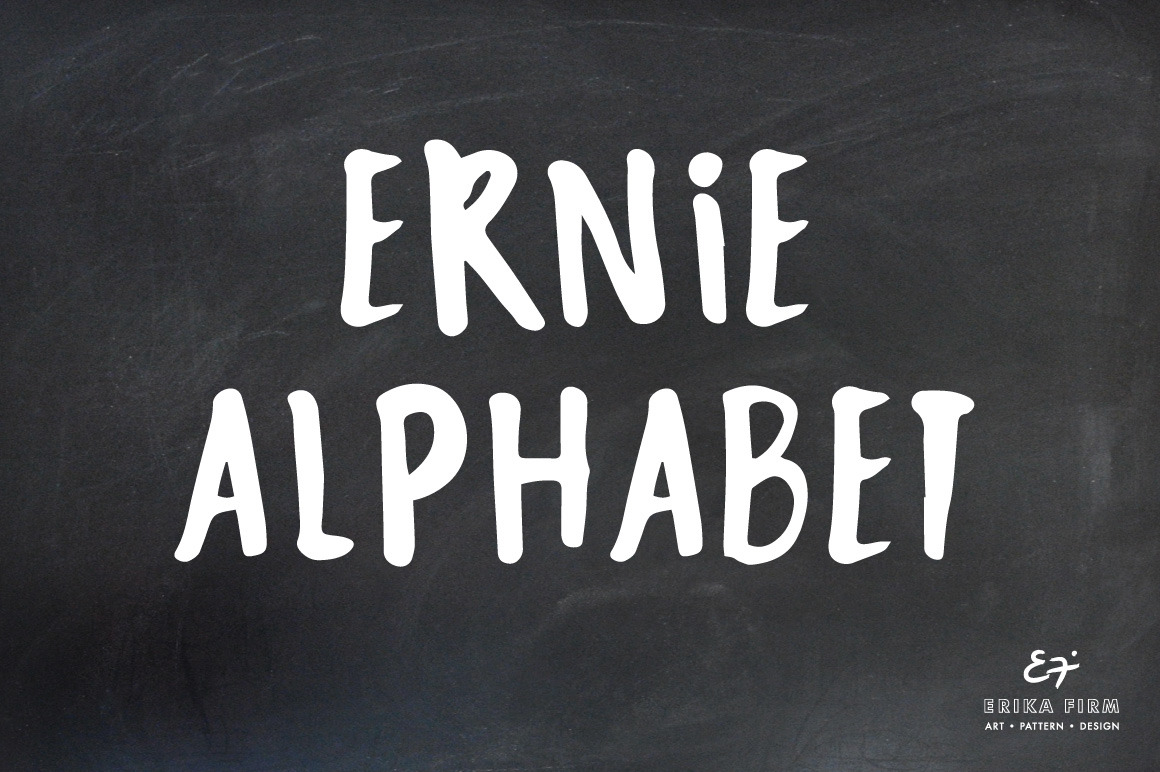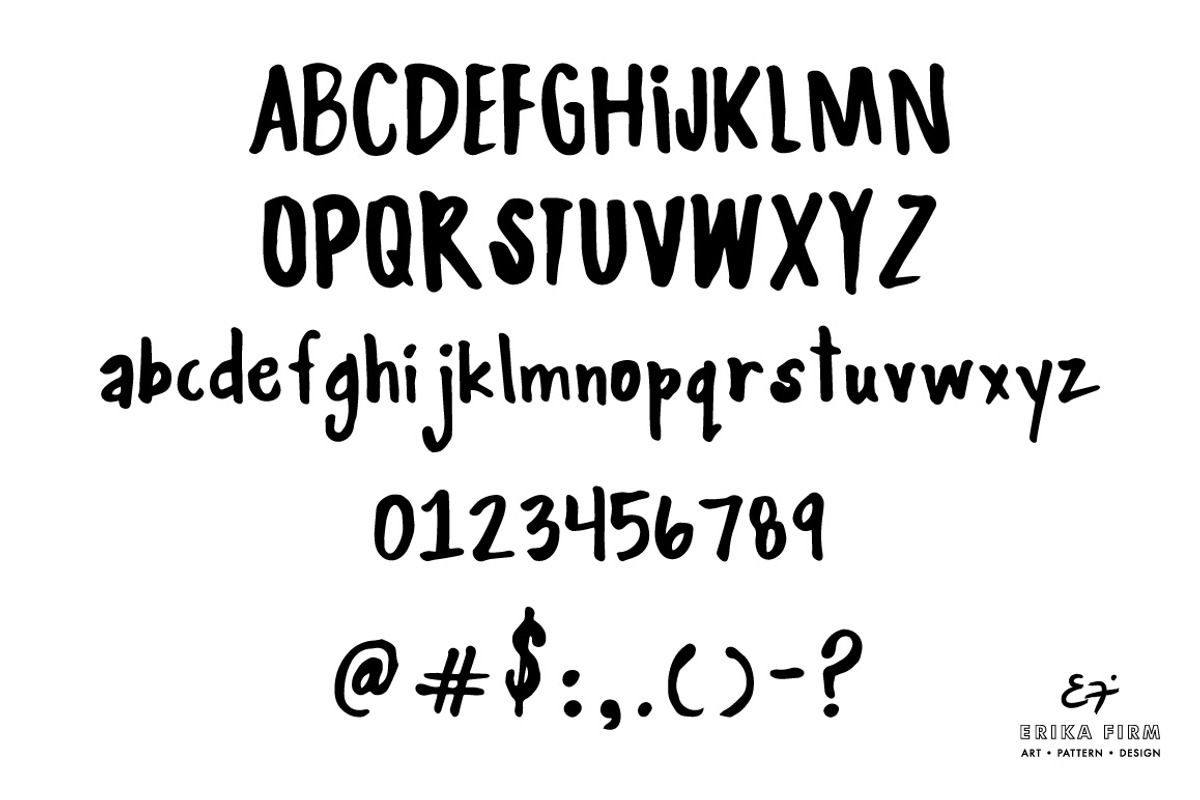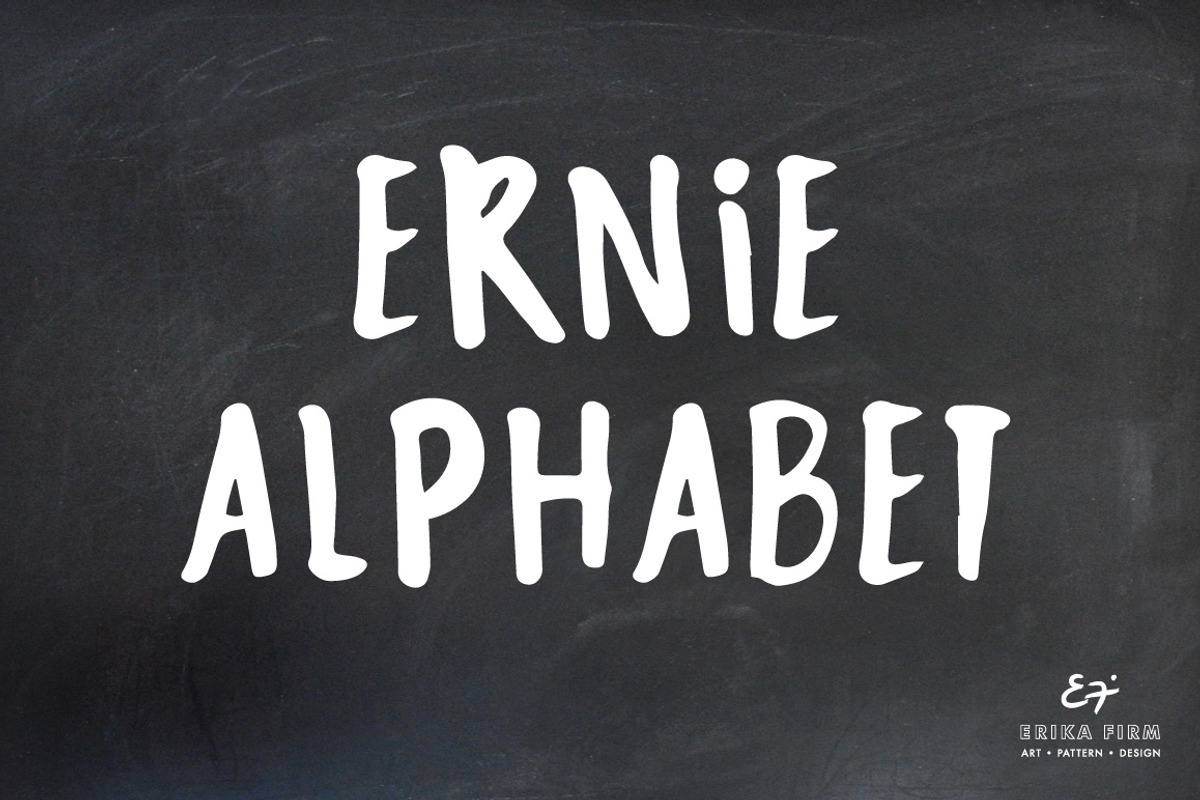
Ernie Handwritten Font
This handwritten font was created using a thick marker and was made to look like actual handwriting. This font is perfect for printing a note, gift tags, etc.